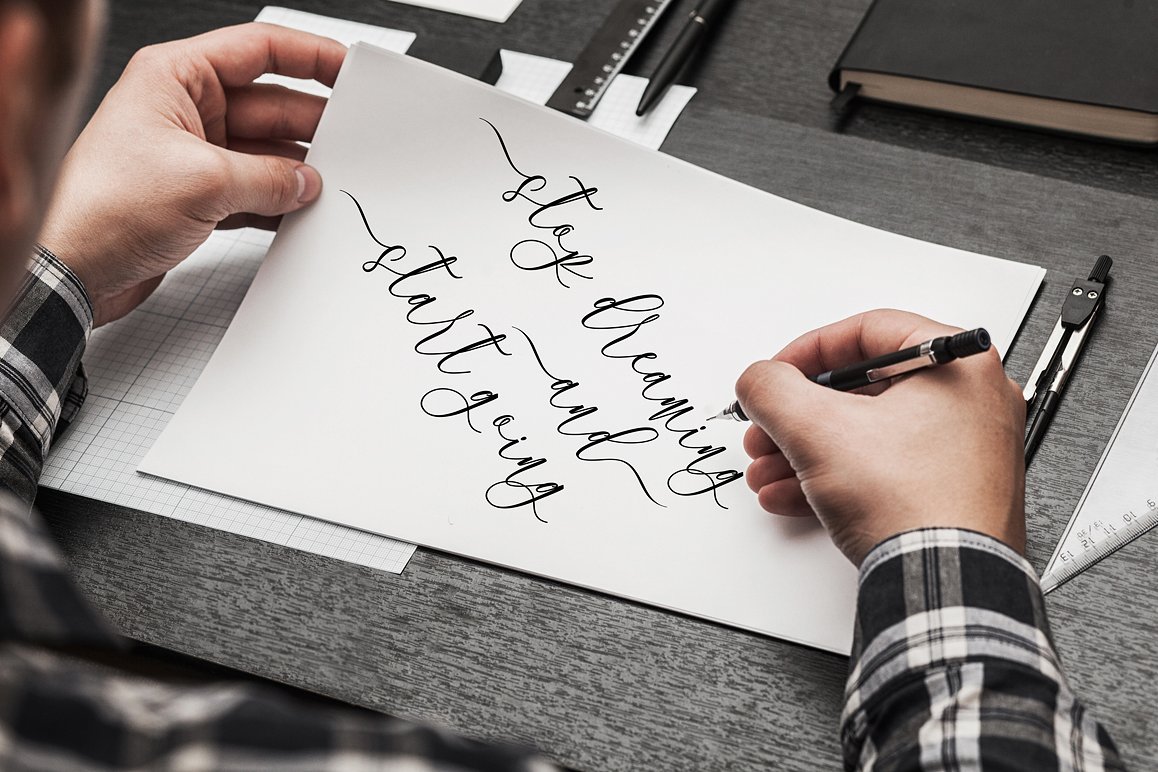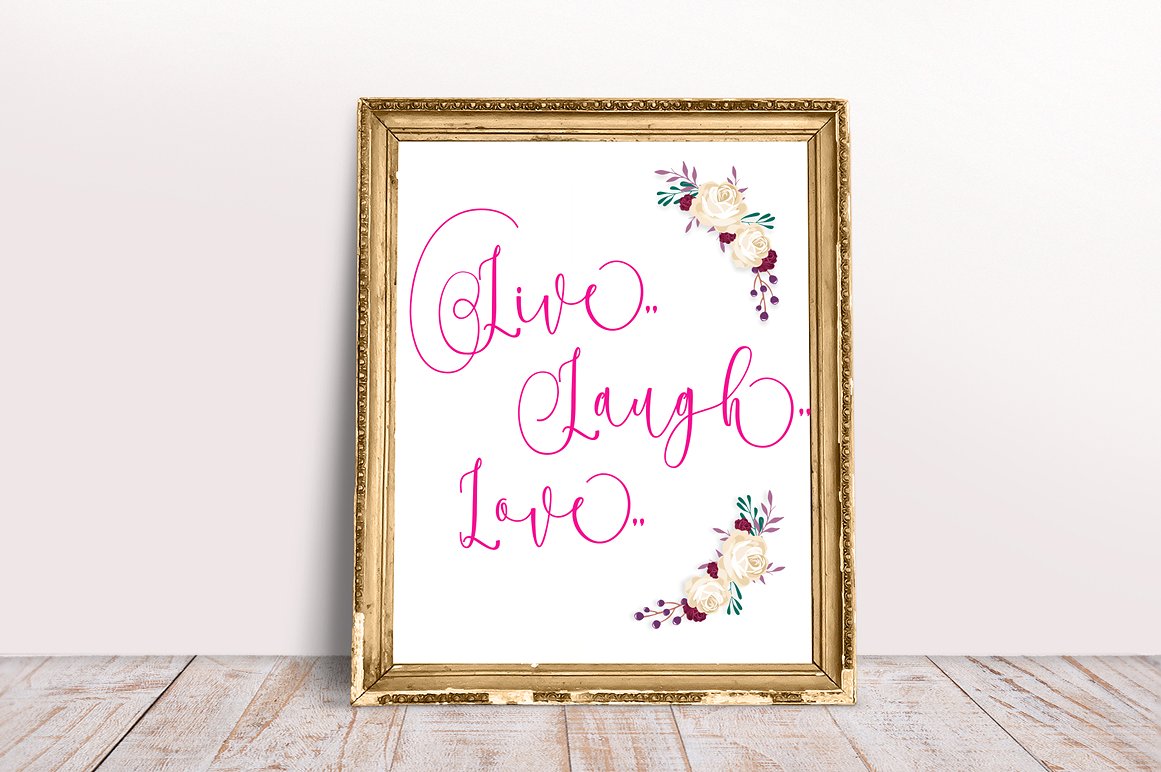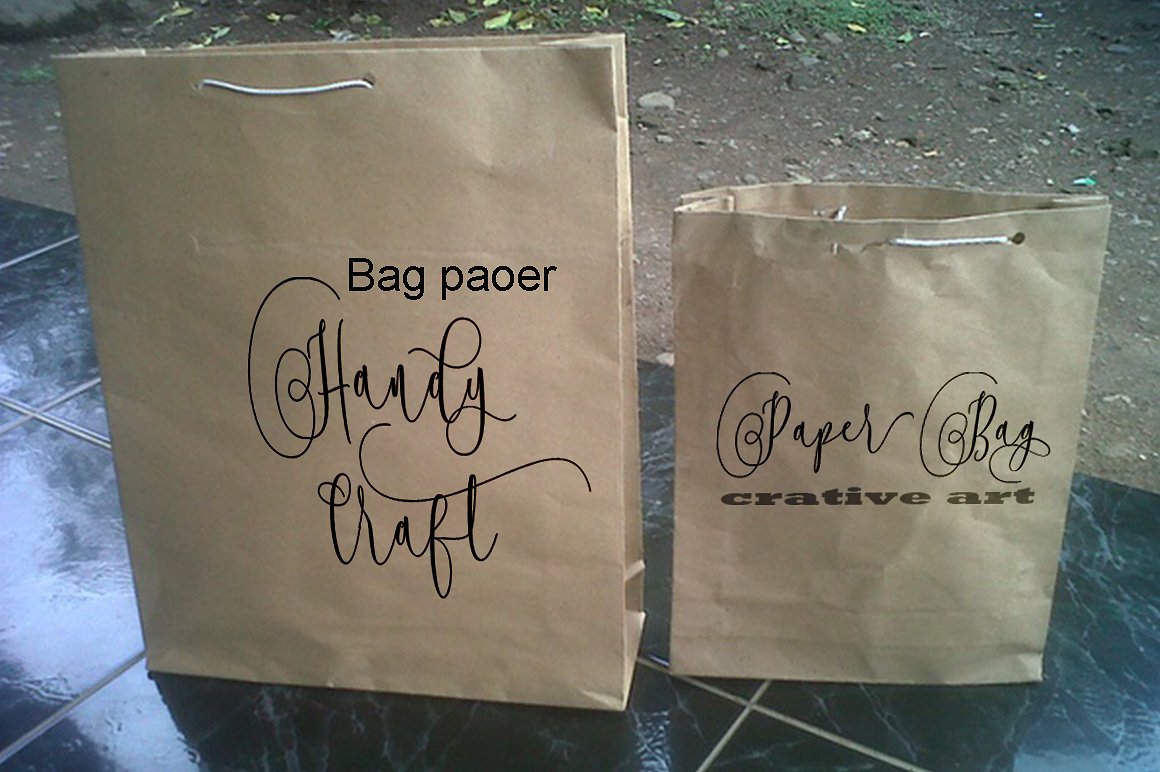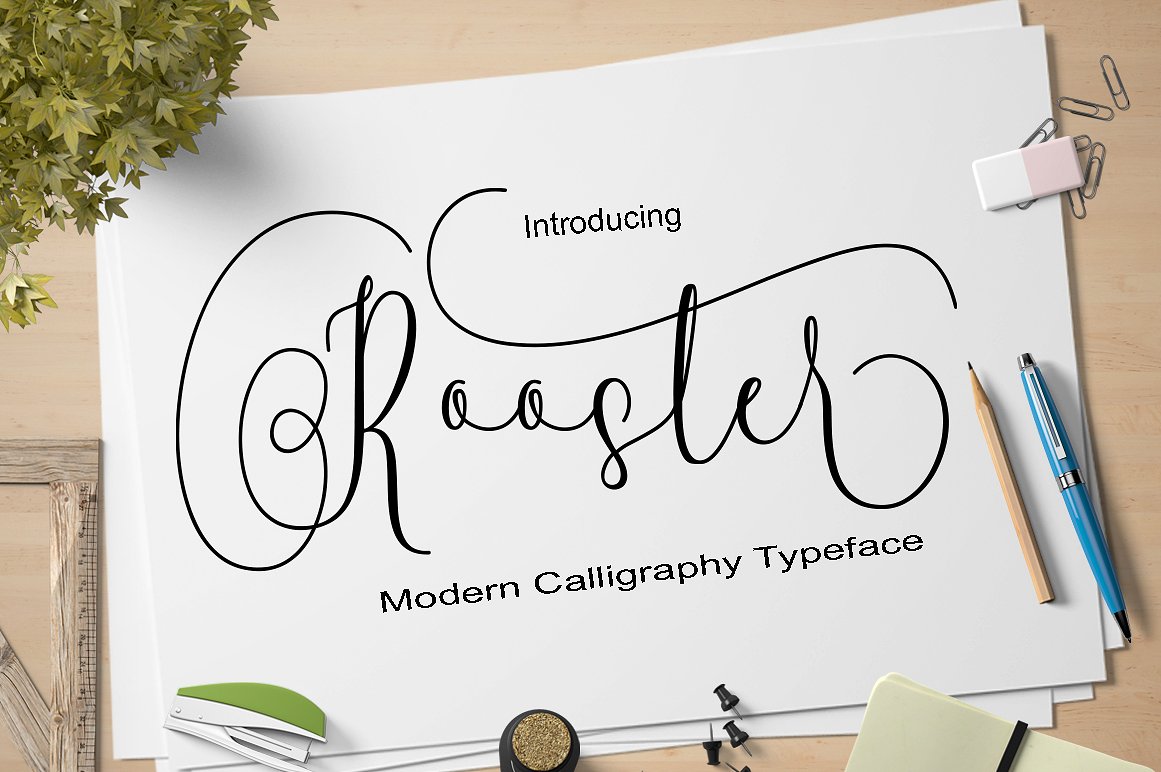
Rooster Script Font
Rooster Script Font – Free Demo
I am happy to present you a modern calligraphy typeface. If you are looking for a calligraphy style suited to your design then it’s here! Introducing Rooster Font. Rooster is a stylish calligraphy font that features a varying baseline, smooth line, classic and elegant touch. Can be used for various purposes.such as headings, signature, logos, wedding invitation, t-shirt, letterhead, signage, lable, news, posters, badges etc.